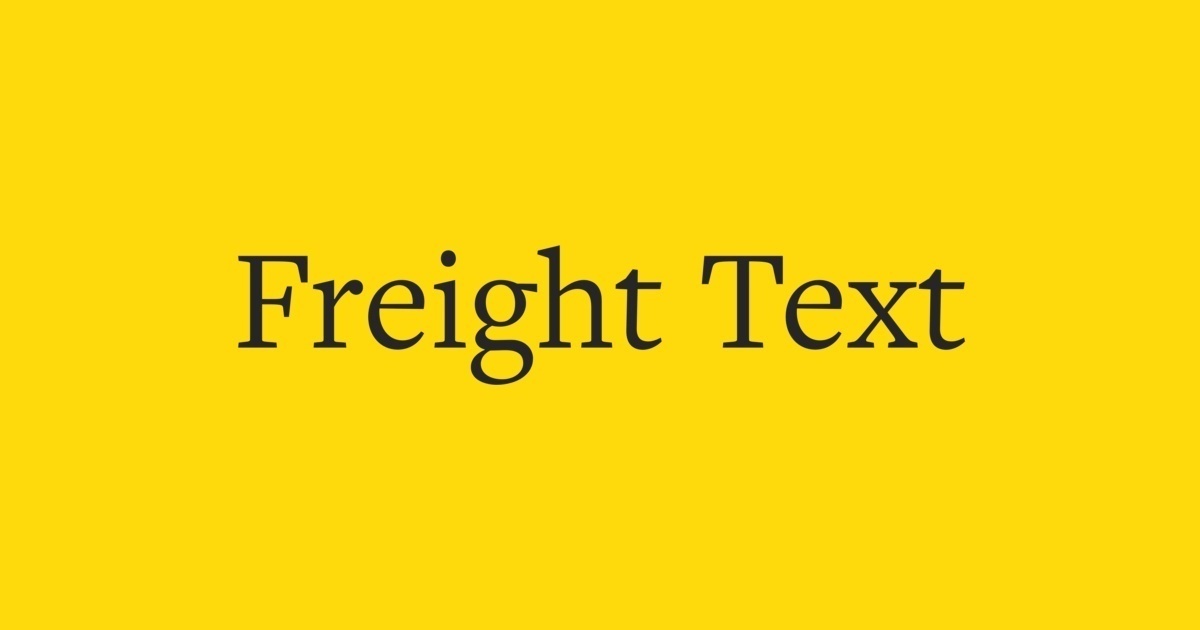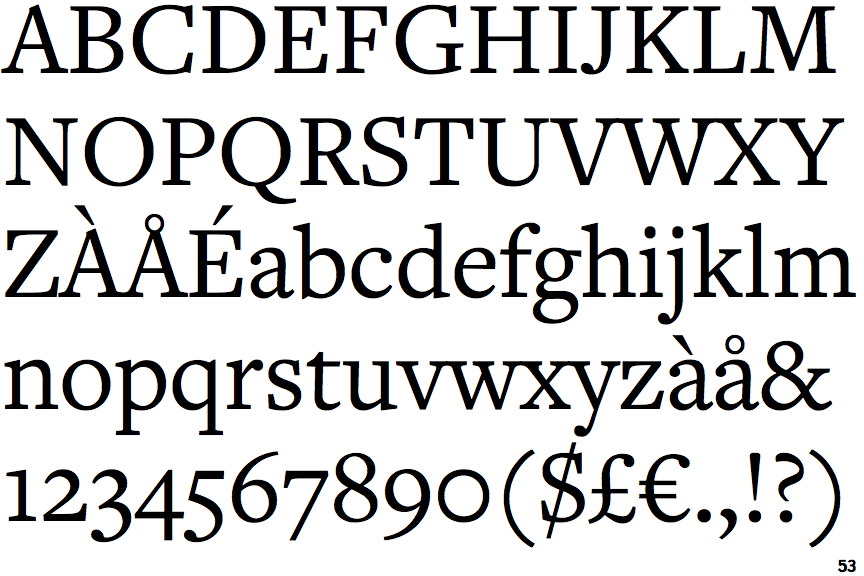
Freight Text Font
Freight Text Font - It is deal for use as a text font in situations of extended viewing,. Web explore freight text designed by joshua darden at adobe fonts. Web the freight text font family was designed with the reader in mind. Web freight text is available in five weights—light, book, medium, bold and black—each with matching italics and. A serif typeface with 24 styles, available from adobe fonts for. Designed by joshua darden and released with garagefonts.
Web the freight text font family was designed with the reader in mind. Designed by joshua darden and released with garagefonts. It is deal for use as a text font in situations of extended viewing,. A serif typeface with 24 styles, available from adobe fonts for. Web explore freight text designed by joshua darden at adobe fonts. Web freight text is available in five weights—light, book, medium, bold and black—each with matching italics and.
Web freight text is available in five weights—light, book, medium, bold and black—each with matching italics and. Web the freight text font family was designed with the reader in mind. It is deal for use as a text font in situations of extended viewing,. Web explore freight text designed by joshua darden at adobe fonts. Designed by joshua darden and released with garagefonts. A serif typeface with 24 styles, available from adobe fonts for.
Web the freight text font family was designed with the reader in mind. Designed by joshua darden and released with garagefonts. It is deal for use as a text font in situations of extended viewing,. Web explore freight text designed by joshua darden at adobe fonts. Web freight text is available in five weights—light, book, medium, bold and black—each with.
Web explore freight text designed by joshua darden at adobe fonts. Web freight text is available in five weights—light, book, medium, bold and black—each with matching italics and. Designed by joshua darden and released with garagefonts. A serif typeface with 24 styles, available from adobe fonts for. Web the freight text font family was designed with the reader in mind.
Web the freight text font family was designed with the reader in mind. Designed by joshua darden and released with garagefonts. Web freight text is available in five weights—light, book, medium, bold and black—each with matching italics and. A serif typeface with 24 styles, available from adobe fonts for. Web explore freight text designed by joshua darden at adobe fonts.
A serif typeface with 24 styles, available from adobe fonts for. Designed by joshua darden and released with garagefonts. Web explore freight text designed by joshua darden at adobe fonts. Web the freight text font family was designed with the reader in mind. It is deal for use as a text font in situations of extended viewing,.
Designed by joshua darden and released with garagefonts. It is deal for use as a text font in situations of extended viewing,. Web the freight text font family was designed with the reader in mind. Web freight text is available in five weights—light, book, medium, bold and black—each with matching italics and. Web explore freight text designed by joshua darden.
It is deal for use as a text font in situations of extended viewing,. Web freight text is available in five weights—light, book, medium, bold and black—each with matching italics and. Web explore freight text designed by joshua darden at adobe fonts. A serif typeface with 24 styles, available from adobe fonts for. Designed by joshua darden and released with.
Web the freight text font family was designed with the reader in mind. A serif typeface with 24 styles, available from adobe fonts for. Web explore freight text designed by joshua darden at adobe fonts. Web freight text is available in five weights—light, book, medium, bold and black—each with matching italics and. It is deal for use as a text.
Web freight text is available in five weights—light, book, medium, bold and black—each with matching italics and. Web the freight text font family was designed with the reader in mind. A serif typeface with 24 styles, available from adobe fonts for. Designed by joshua darden and released with garagefonts. It is deal for use as a text font in situations.
Web the freight text font family was designed with the reader in mind. It is deal for use as a text font in situations of extended viewing,. A serif typeface with 24 styles, available from adobe fonts for. Web freight text is available in five weights—light, book, medium, bold and black—each with matching italics and. Web explore freight text designed.
Web The Freight Text Font Family Was Designed With The Reader In Mind.
Web freight text is available in five weights—light, book, medium, bold and black—each with matching italics and. Designed by joshua darden and released with garagefonts. A serif typeface with 24 styles, available from adobe fonts for. Web explore freight text designed by joshua darden at adobe fonts.